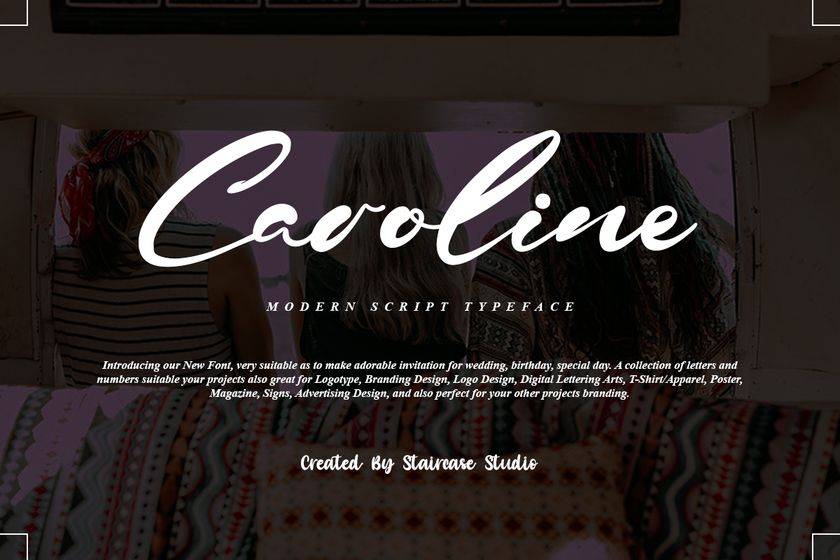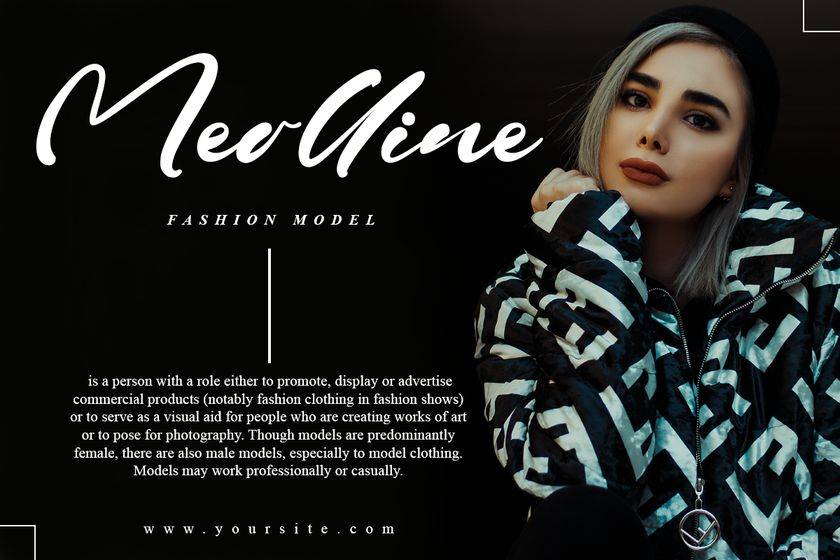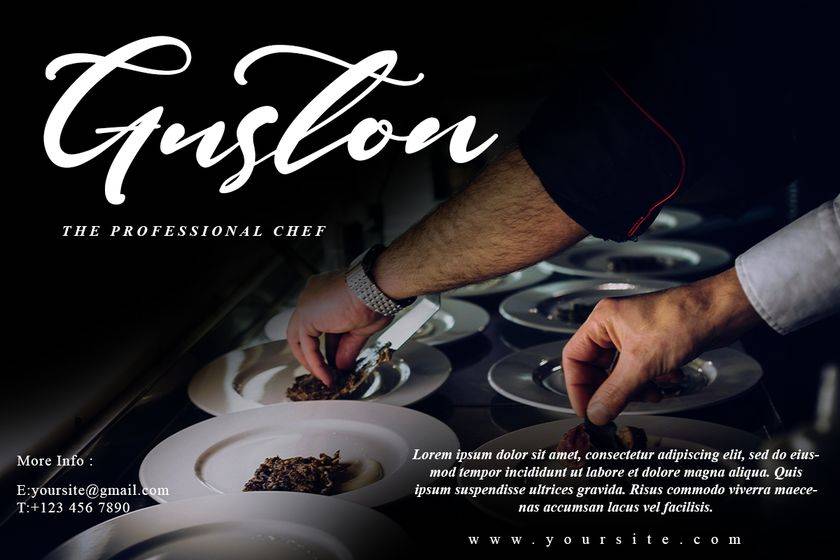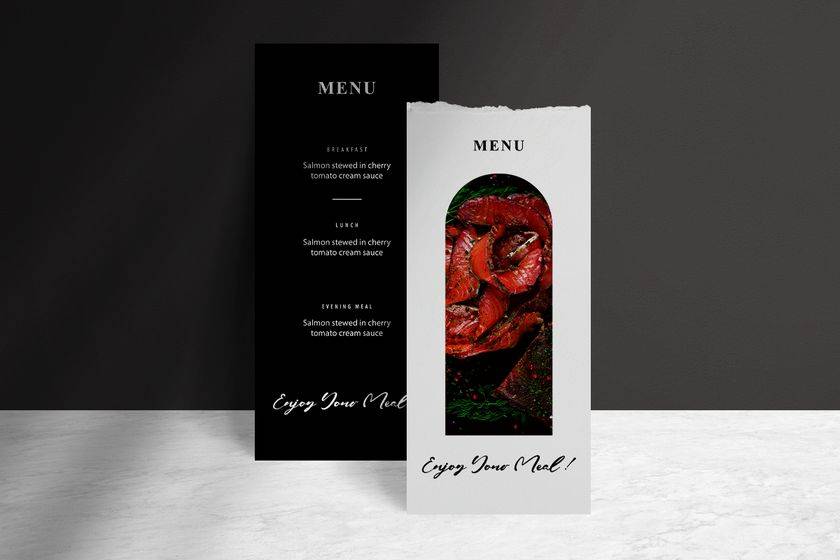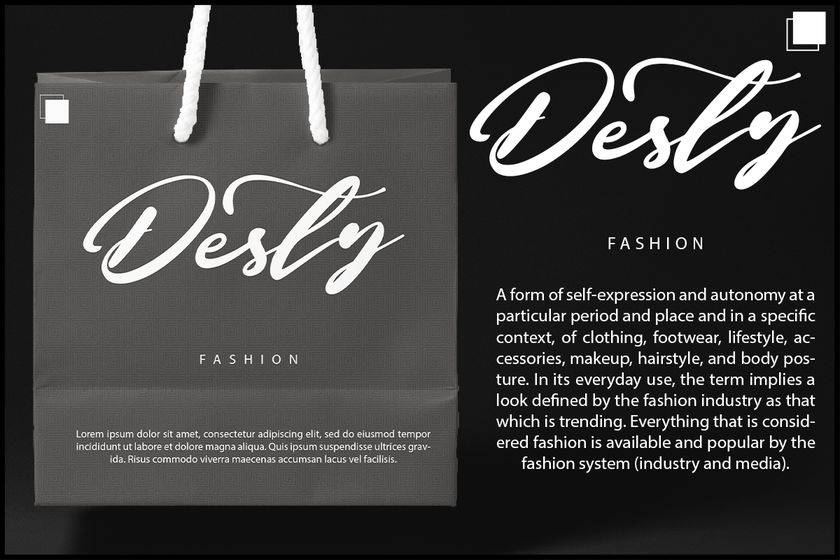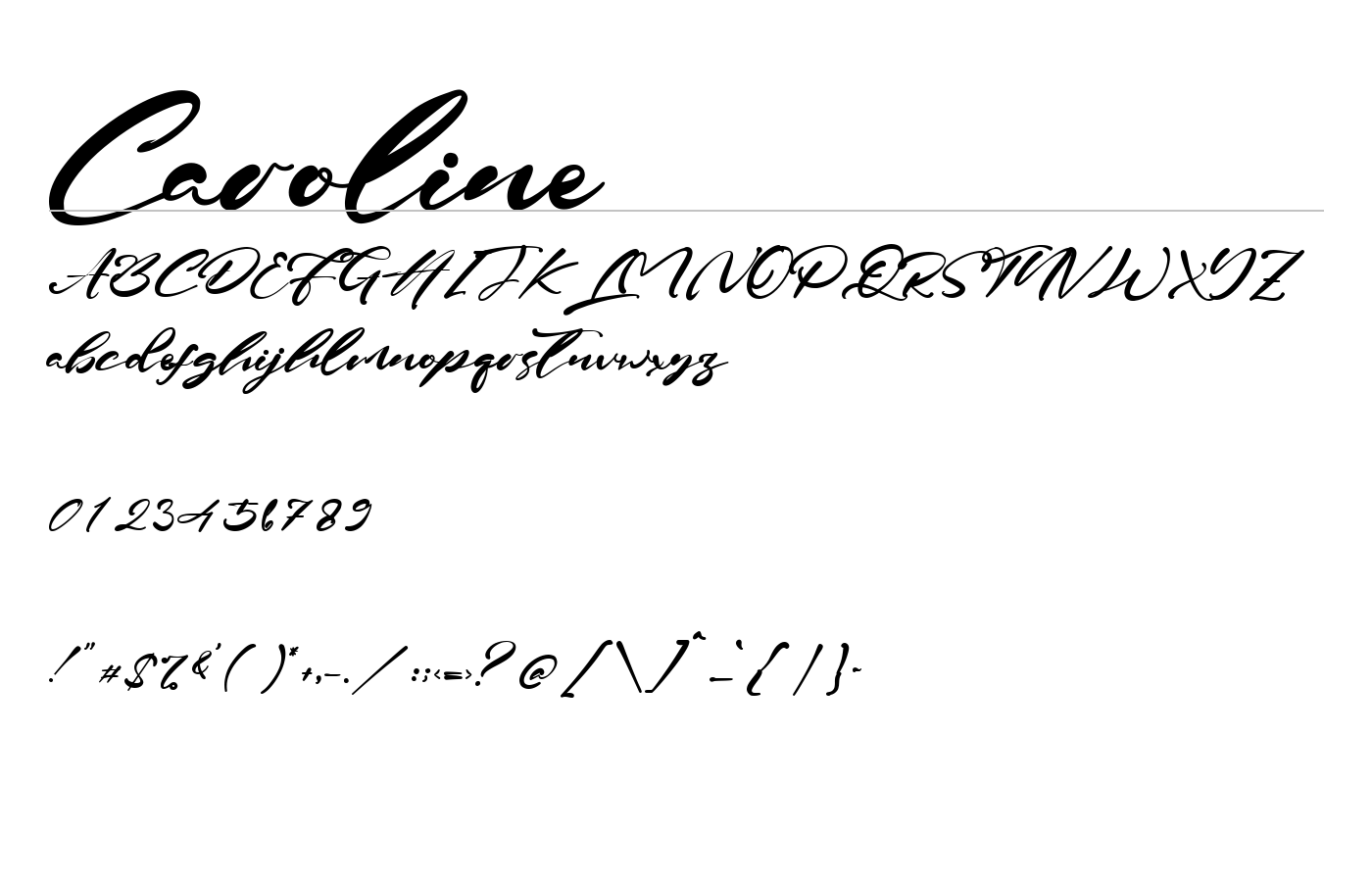
Caroline Font is a graceful script typeface characterized by elegant, flowing letterforms that mimic classic handwritten calligraphy with smooth, natural strokes and moderate contrast. Its stylish and refined appearance makes it ideal for sophisticated branding, invitations, and editorial use where a personal yet polished touch is desired. This font’s expressive curves and distinctive character shapes lend an artistic flair, enhancing any design with a sense of charm and refinement.
Caroline Font
About Caroline Font
| Font family | Caroline Font |
| Release date | 2021-11-06 |
| Designer | Staircase Studio |